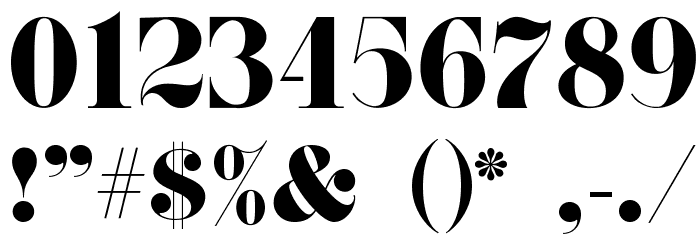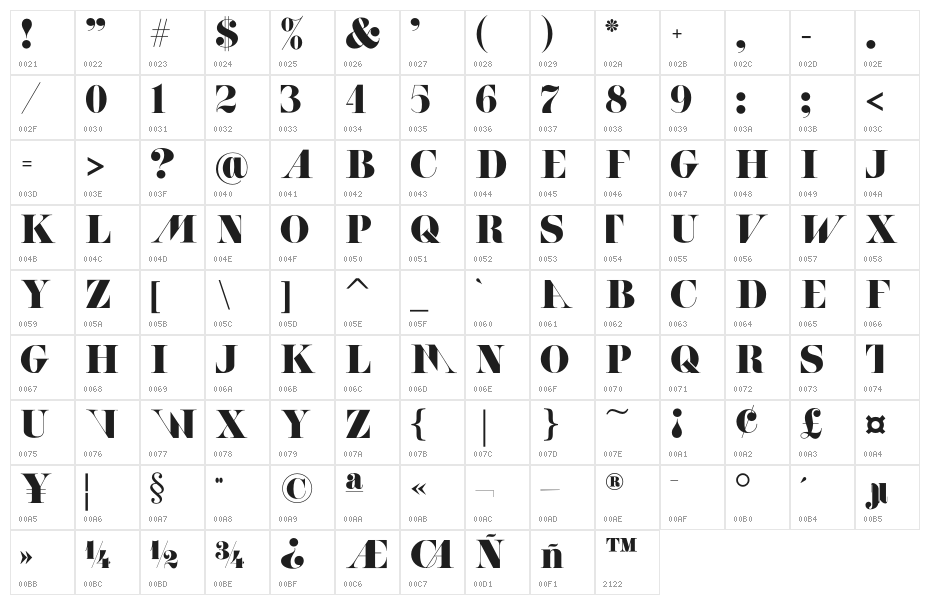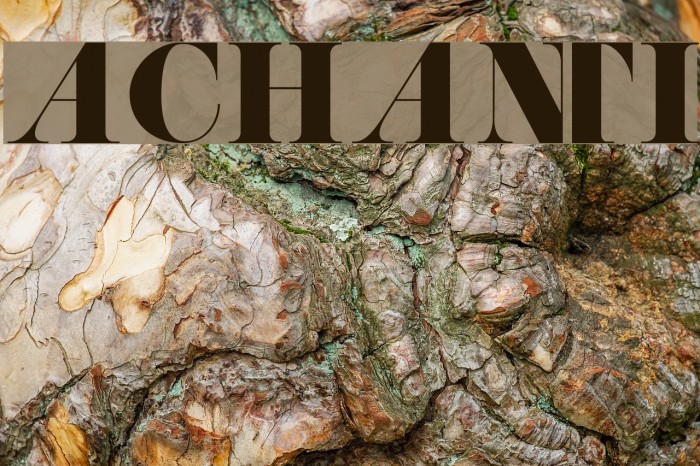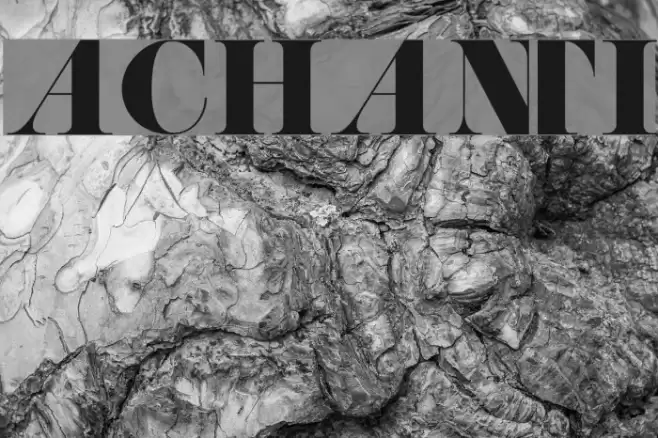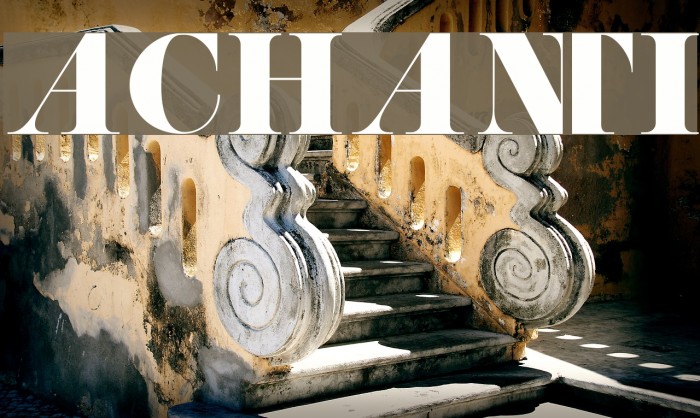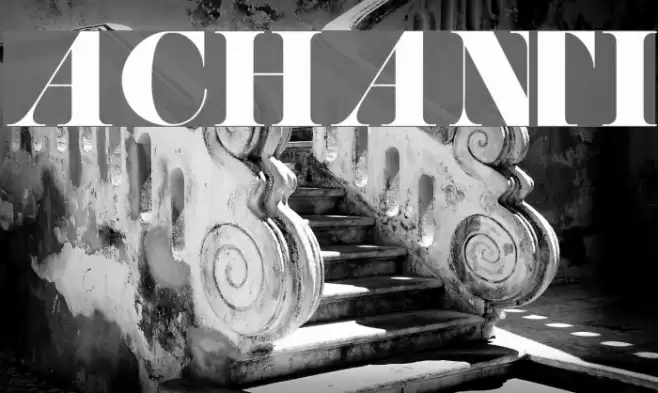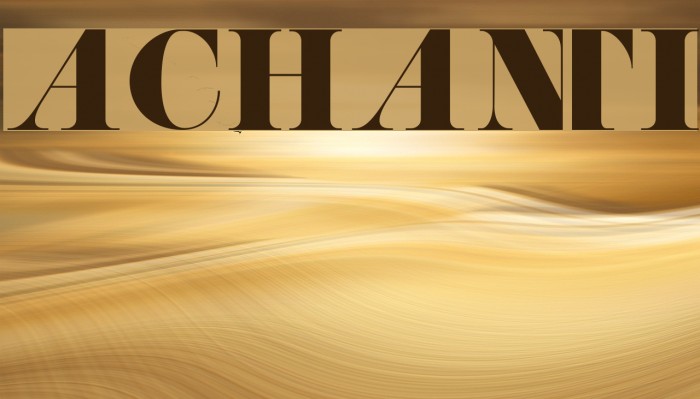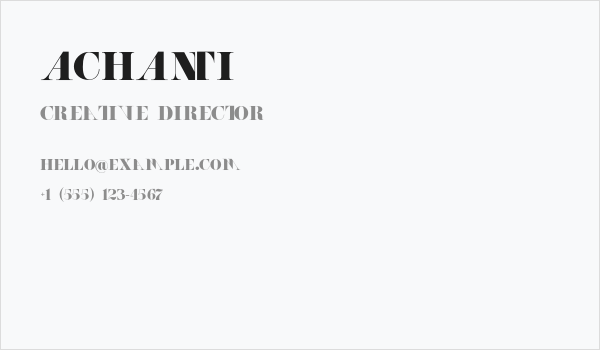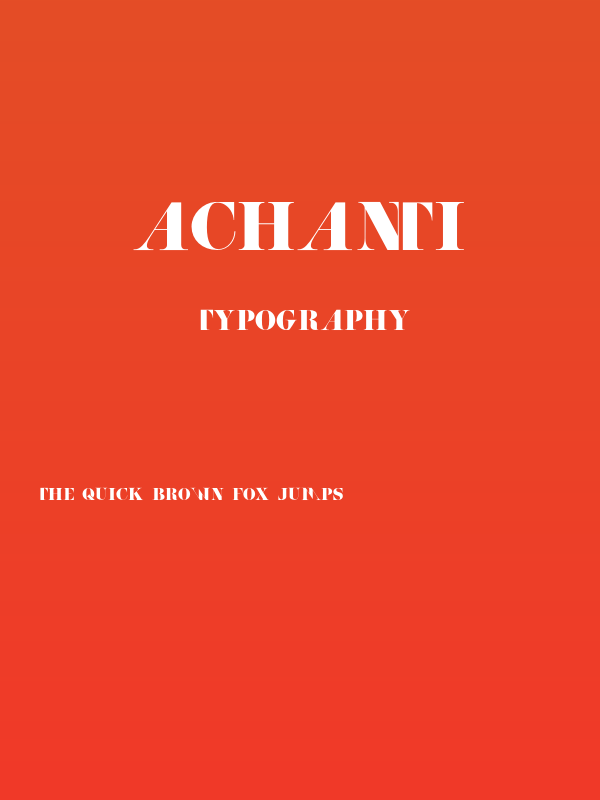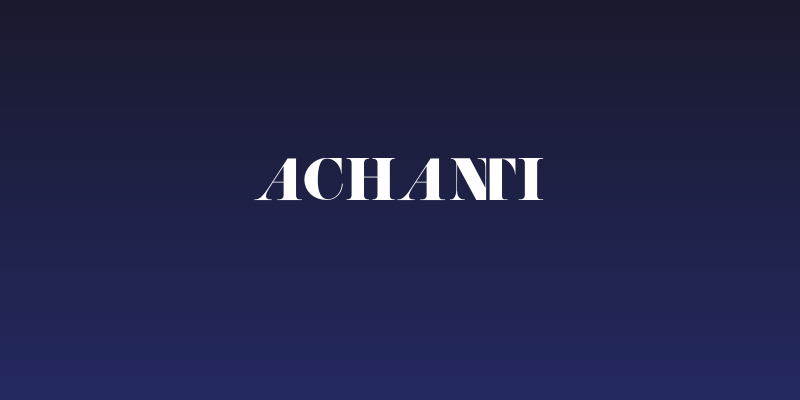
ACHANTI Font
ACHANTI Description
This font features a striking and bold design with a high contrast between thick and thin strokes, giving it a dramatic and elegant appearance. The uppercase letters are particularly distinctive, with sharp serifs and a modern flair. The lowercase letters maintain the same boldness, ensuring consistency throughout the typeface. The numerals are equally bold, with a unique curvature that adds a touch of sophistication. Special characters are designed to match the overall aesthetic, making this font suitable for various creative applications.
| Proposed Projects | Ideal for use in luxury branding, editorial headlines, fashion magazines, and high-end product packaging. |